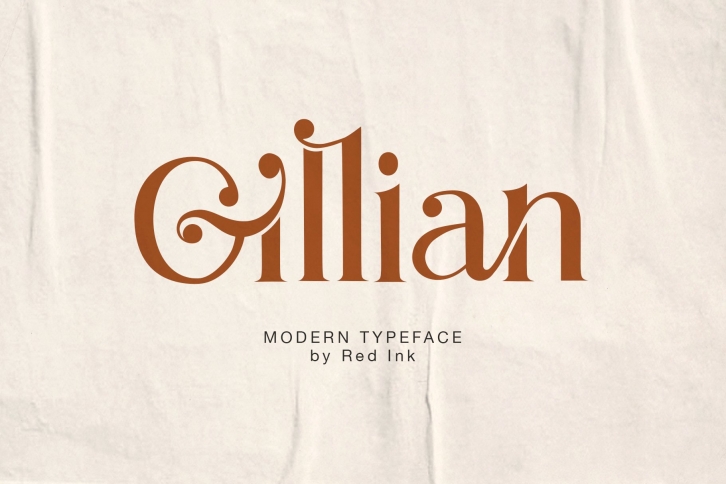
Gillian. Stylish Serif Ligature Font Download
Gillian. Stylish Serif Ligature is a trendy and unique font with an authentic style. It was designed by Red Ink and it's a great choice for creative people who need such a font. It was released on February 24, 2021 and the file size is 4.18 MB. Gillian. Stylish Serif Ligature will add an organic vibe to any design idea!